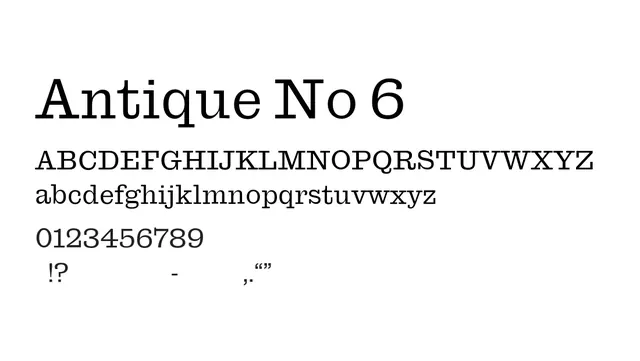
Antique No 6
Antique No 6, modern, strong
A geometric slab-serif with bracketed serifs and strong contrast, conveying confidence and modernity with classical undertones.
Perfect for headlines, display typography, and branding applications where impact and distinction are needed. The geometric proportions and strong serifs work well in editorial design and upscale fashion contexts. Excellent for poster design and brand identity systems.
Pairs excellently with AntaTrial for contemporary editorial systems, or with Analo Grotesk for striking headlines over technical body text.